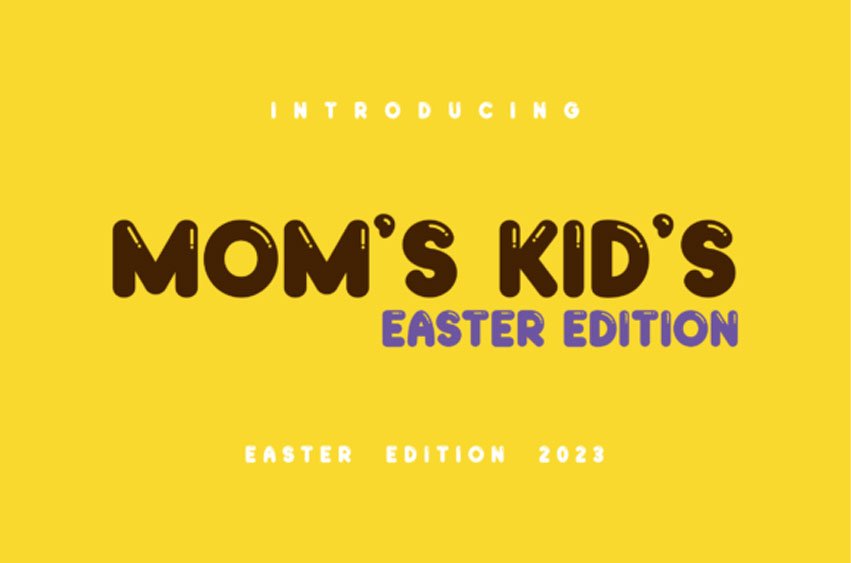
Moms Kids Easter Font
Moms Kids Easter Font Edition is a simple yet striking display font that captures the essence of modern design.
Its clean lines and minimalist style make it perfect for branding, editorial layouts, and any project that requires a modern and refined aesthetic.